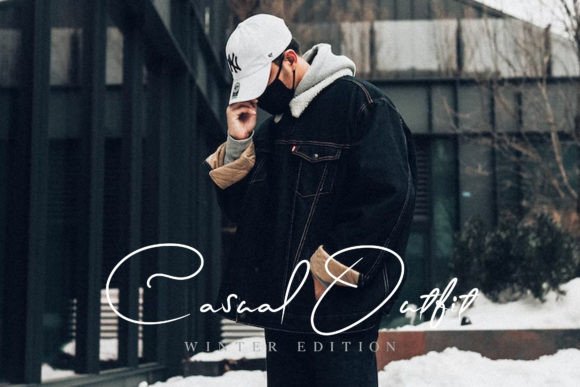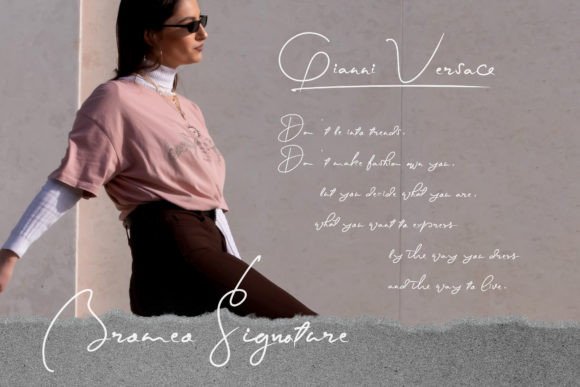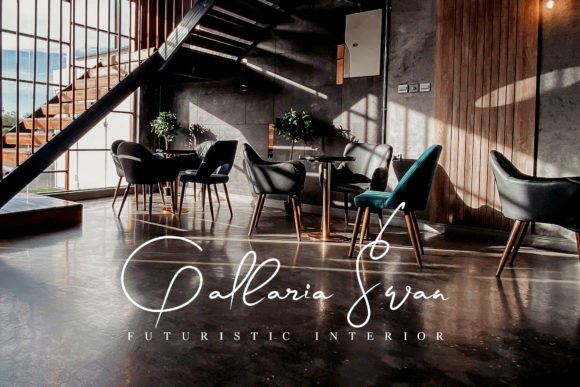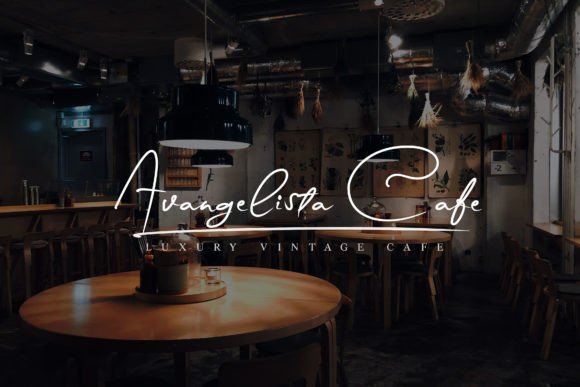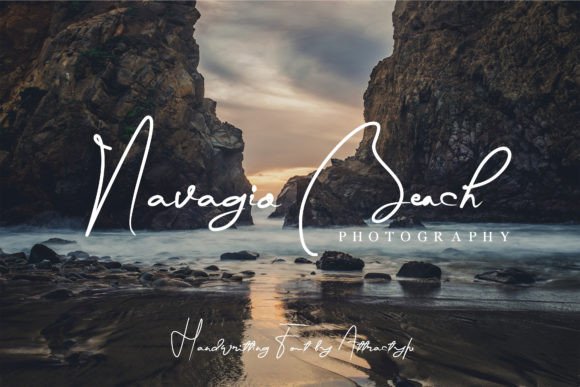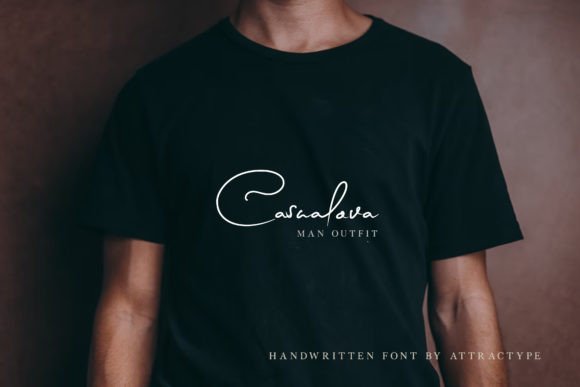
The Perfect Script for Your Next Design Masterpiece
As designers, we’ve all been there – staring at a blank canvas, struggling to find the perfect font to bring our vision to life. It’s that moment when you need a font that exudes elegance and sophistication, yet still conveys a sense of playfulness and whimsy. For those moments, we have the Bromeo Signature Font – a lovely and delicate script font that’s sure to elevate your designs to new heights.
Crafted specifically for designers who crave a beautiful and refreshing look, the Bromeo Signature Font is a valuable addition to any design arsenal. With its PUA encoding, you’ll have access to all the glyphs and swashes you need to create stunning, one-of-a-kind designs. Whether you’re working on a wedding invitation, a branding project, or simply want to add a touch of elegance to your social media graphics, the Bromeo Signature Font is sure to impress.
Bromeo Signature Font Key Features
- Font Family: Bromeo Signature Font is a unique, high-end font family designed for signatures and handwritten elements.
- Size: The font family includes multiple weights, ranging from Light (100) to Heavy (900), providing flexibility for various design applications.
- Resolution: Designed to be scalable, the font family supports high-resolution displays and printing, ensuring crisp and clear text output.
- Unique Characteristics: Bromeo Signature Font features custom-designed letterforms, flourishes, and connecting strokes to mimic authentic handwritten signatures.
Bromeo Signature Font Review
Overall, I’m impressed with the Bromeo Signature Font. Here’s what I like about it:
- ✨ It’s highly customizable, with a wide range of options for adjusting font sizes, weights, and styles.
- ✨ The font is highly legible, making it perfect for body text, headings, and even logos.
- ✨ It’s a great choice for modern designs, with a sleek and sophisticated look.
However, there are a few limitations:
- ⚠️ The font can be a bit overwhelming when used in large quantities, so be mindful of font sizes and weights.
- ⚠️ Some users may find the font too modern or trendy, which might not be suitable for all design styles.
- ⚠️ The font doesn’t come with a lot of extra characters or symbols, so you might need to supplement with additional fonts.
Overall, I think the Bromeo Signature Font is a great addition to any designer’s toolkit. While it may have some limitations, its customizability, legibility, and modern look make it a great choice for a wide range of designs.
Bromeo Signature Font: A Practical Application Guide
Experiment with different font sizes and styles to create a unique look. Combine the Bromeo Signature Font with other fonts for a visually appealing design.
The Bromeo Signature Font is ideal for logos, branding, and marketing materials. It’s also suitable for use in presentations, documents, and social media graphics.
Alternatives to Bromeo Signature Font for Designers
The Great Vibes Font is a modern, elegant script font that is perfect for creating a sophisticated and luxurious feel. It is ideal for use in branding, logos, and packaging design. Compared to Bromeo Signature Font, Great Vibes Font has a more refined and delicate look, making it suitable for high-end designs.
The Pacifico Font is a beautiful, handwritten script font that is great for creating a relaxed and casual atmosphere. It is ideal for use in advertising, marketing materials, and social media graphics. Compared to Bromeo Signature Font, Pacifico Font has a more laid-back and friendly feel, making it suitable for designs that require a touch of warmth.
The Alex Brush Font is a elegant, handwritten script font that is perfect for creating a personal and creative feel. It is ideal for use in branding, logos, and editorial design. Compared to Bromeo Signature Font, Alex Brush Font has a more refined and artistic look, making it suitable for designs that require a touch of sophistication.